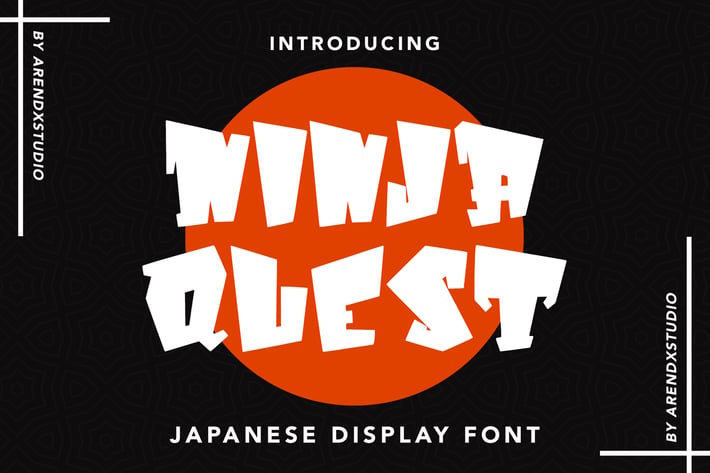
Ninja Quest - Japanese Display Font
Ninja Quest - Japanese Display Font is a font with distinctive handwritten characters perfect for branding projects, logos, wedding designs, media posts, advertisements, product packaging, product designs, labels, photography, watermarks, invitations, stationery, and any project who need handwritten dishes.